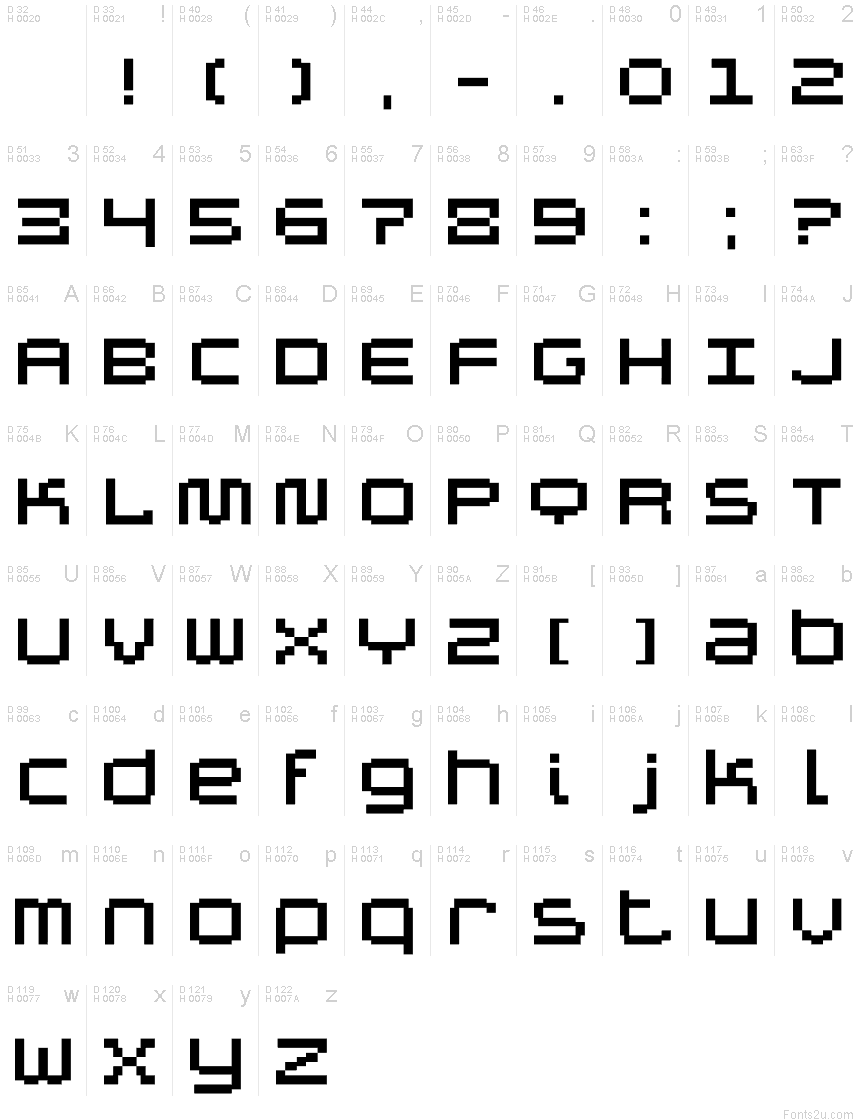
Autriche
Autriche font by Koen Hachmang is a free pixelated bitmap font. Its blocky, stepped strokes snap tightly to the grid, giving words that crisp early-screen feel without turning muddy; at a glance, it brings back arcade menus, boot screens, and monochrome interfaces.
Using Autriche works beautifully for retro game titles, chiptune covers, poster captions, pixel-art branding, tech stickers, stream overlays, and zine headers. Keep it at larger sizes so the square rhythm stays sharp, and pair this free font with a plain sans like Inter for clean body text.